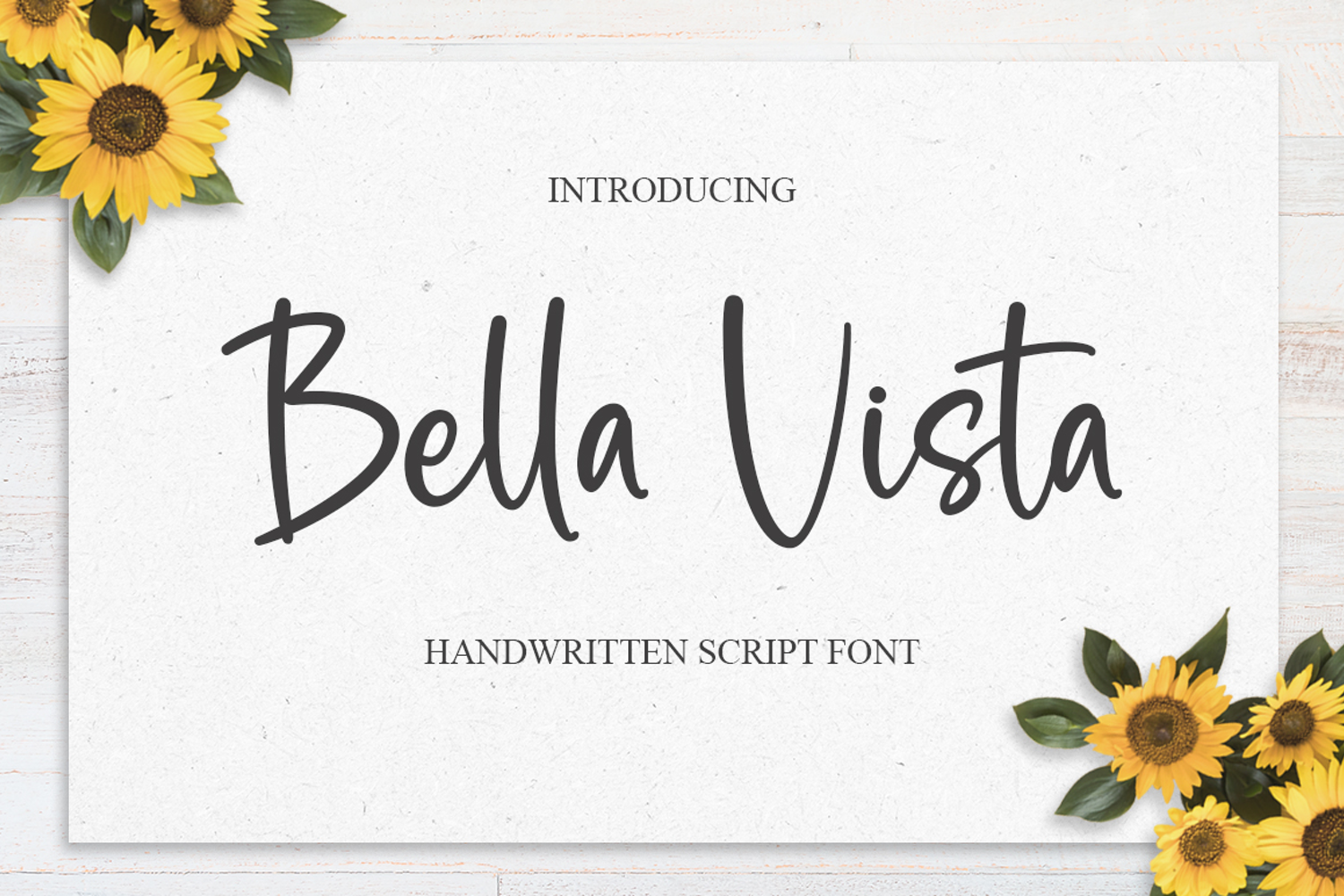
Bella Vista
Bella Vista is a delicate and refined script font that emanates sophistication and elegance. Its stylish alternates and ligatures make this font the perfect match for any project.
Graphix Line Studio